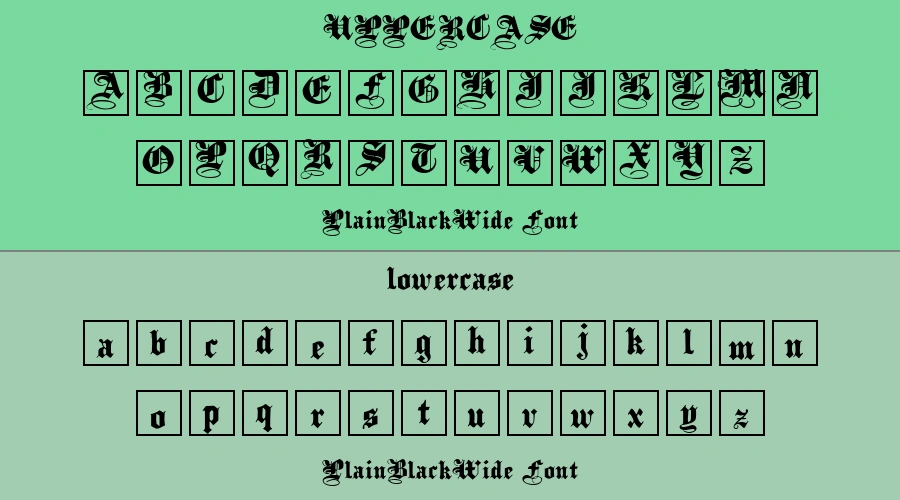
About PlainBlackWide Font
When typographic excellence matters most, PlainBlackWide Normal Font delivers through its thoughtful blend of geometric construction and consistency. Specially crafted for financial statements, it offers the clarity and enduring appeal required for sophisticated design work. Every detail serves a purpose.
The character set showcases thoughtful details like geometric precision alongside functional lining figures. This proves especially valuable in literary pages, where body text reading directly influences results. Particular attention was paid to bowl width and technical tradition during development.